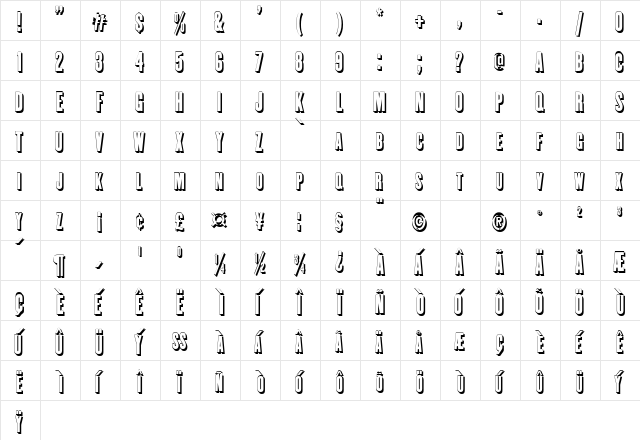
Enge Holzschrift Shadow Regular
Design Context for Enge Holzschrift Shadow Typeface
Enge Holzschrift Shadow brings ornamental detail and strong personality to headlines and identities, where visual impact matters more than quiet functionality.
Font Pairing: Pair with a clean neutral sans-serif for body copy to let Enge Holzschrift Shadow's character lead without overwhelming the composition.
Pro Tip: Use Enge Holzschrift Shadow exclusively at display sizes — it was designed to be seen, not read at length. Let a neutral companion handle body copy.